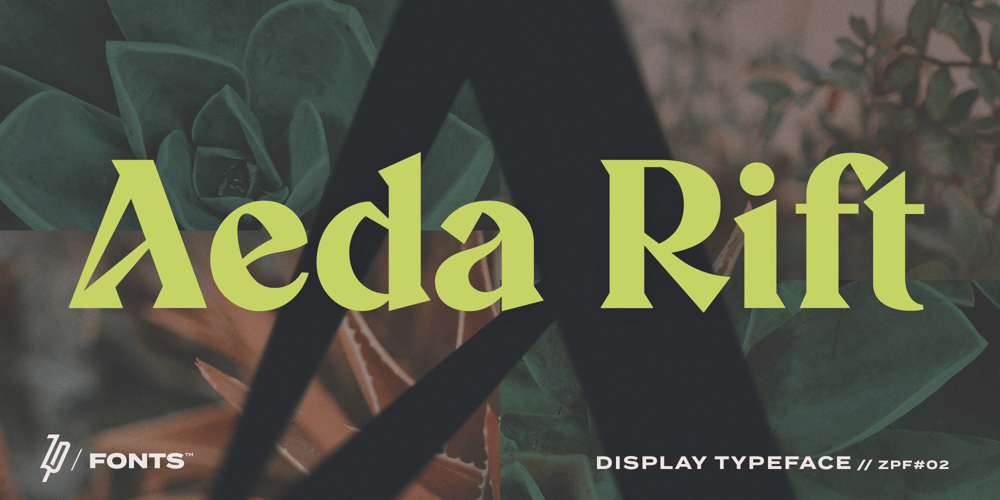
Aeda Rift Font Family was designed by Zac Payne and published by ZP Fonts. Aeda Rift contains 1 styles and family package options. Aeda Rift is a high-contrast display typeface characterized by its sharp serifs and graceful contours, mirroring the elegance and hostility of the desert landscape.Consisting of nearly 400 glyphs, this font includes a full upper and lower case Latin-based alphabet, punctuation, symbols, diacritics, and ligatures—all together supporting over 82 languages. Perfect for headlines, pull quotes, and intro decks, Aeda Rift is carefully kerned and primed for creativity.